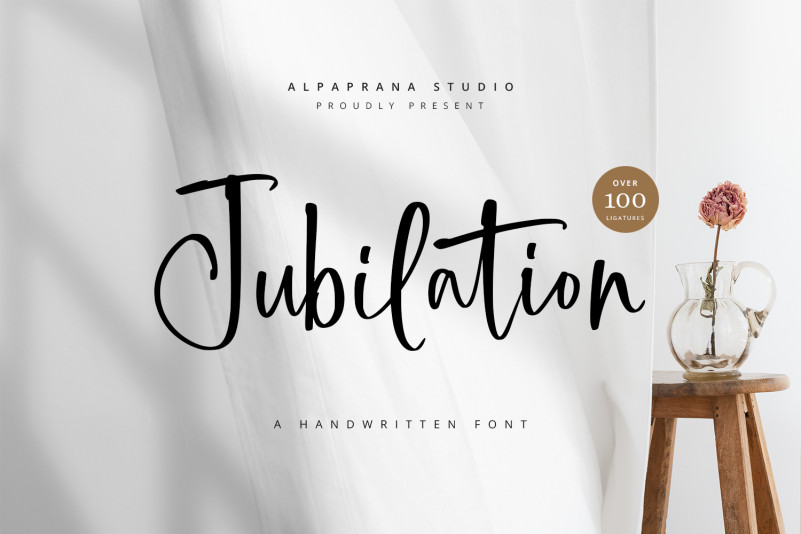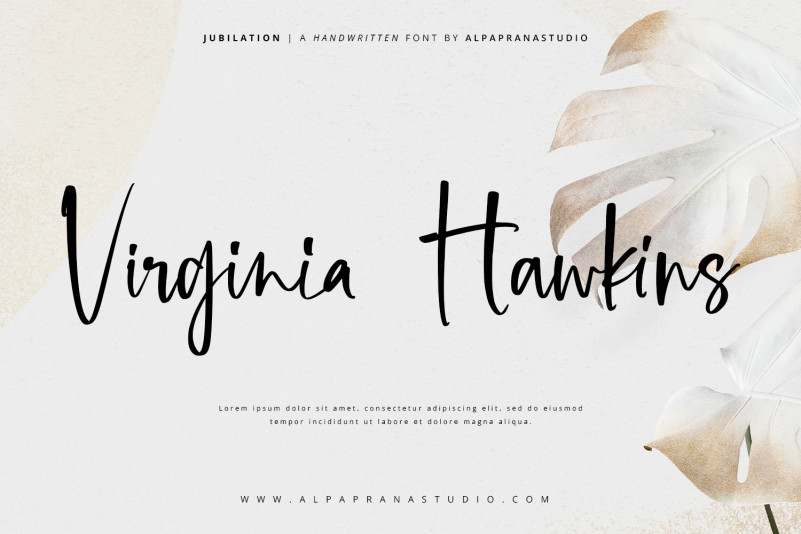
Jubilation Font
Jubilation Script Font is a handwritten font with natural and modern feels. It will be perfectly used for Branding, Logo Design, Lettering, Logotype, Clothing, Poster, magazine, packaging, posters, shopping bags, t-shirts, book covers, photography, special events and other design project.